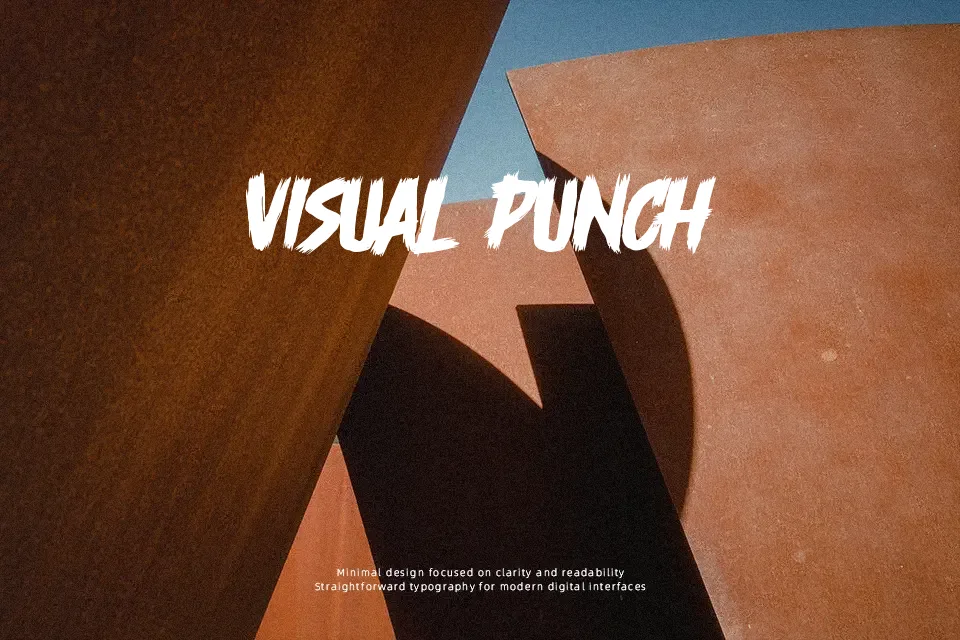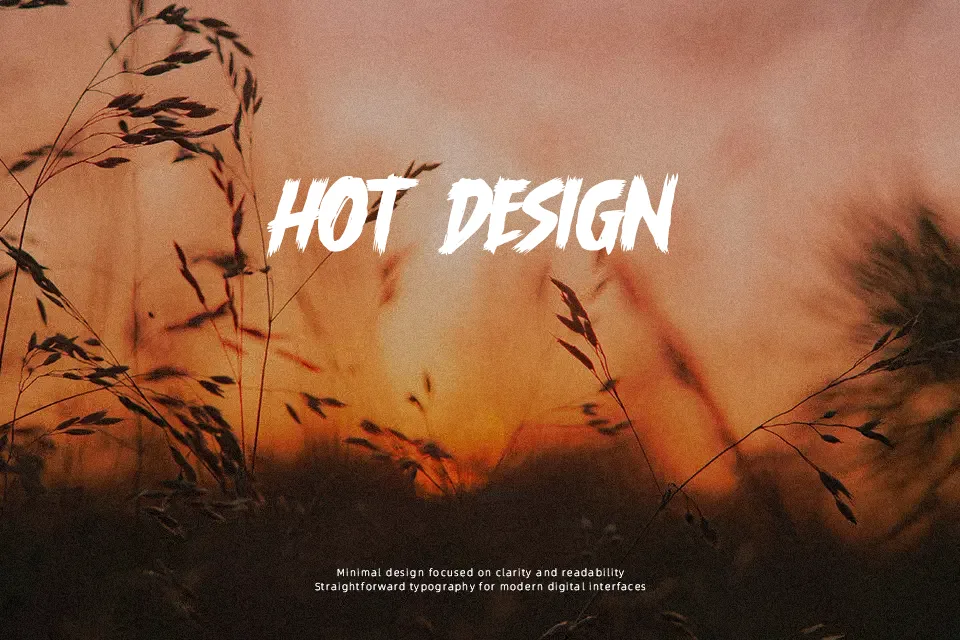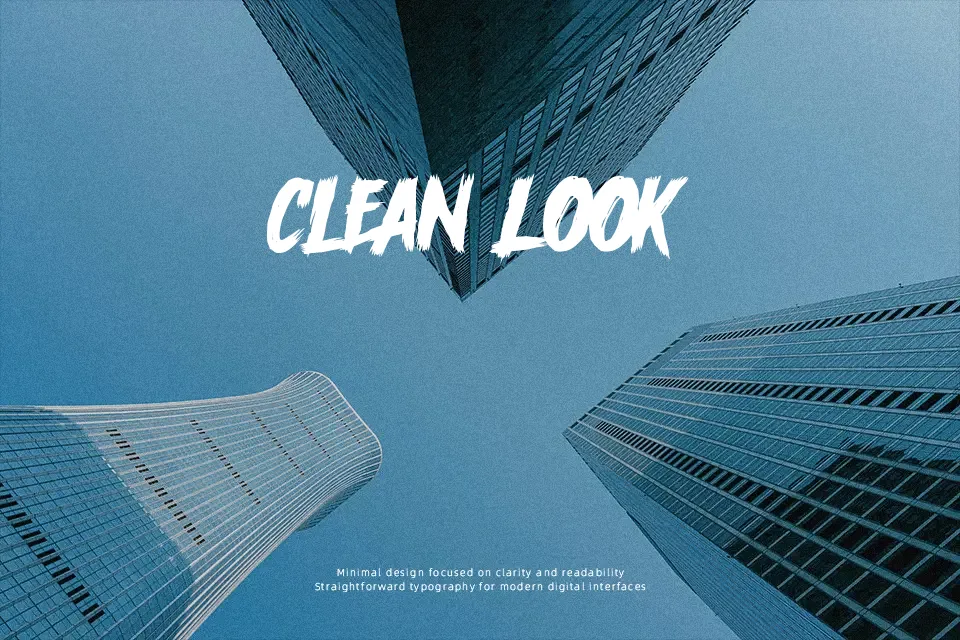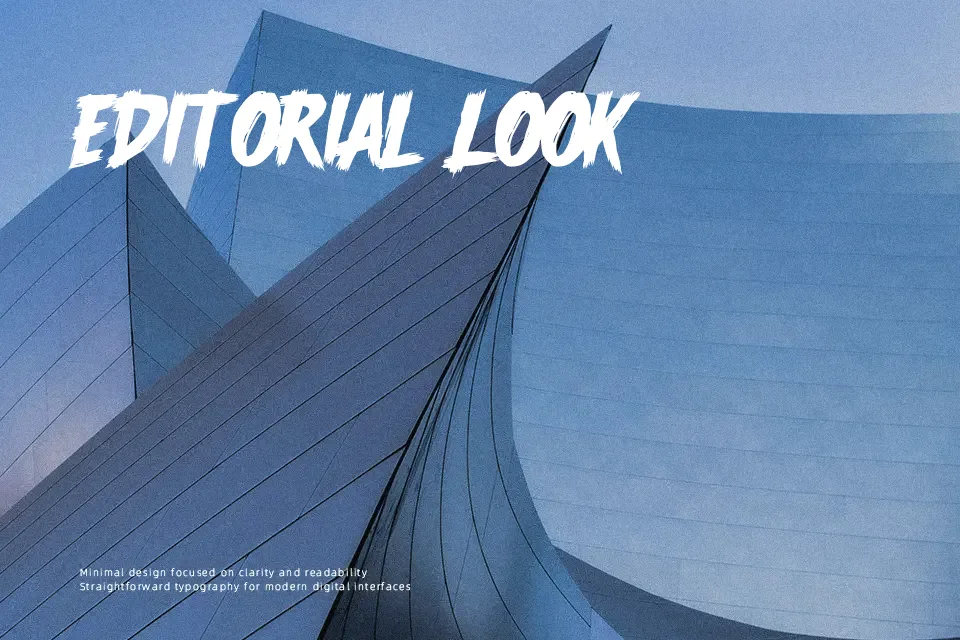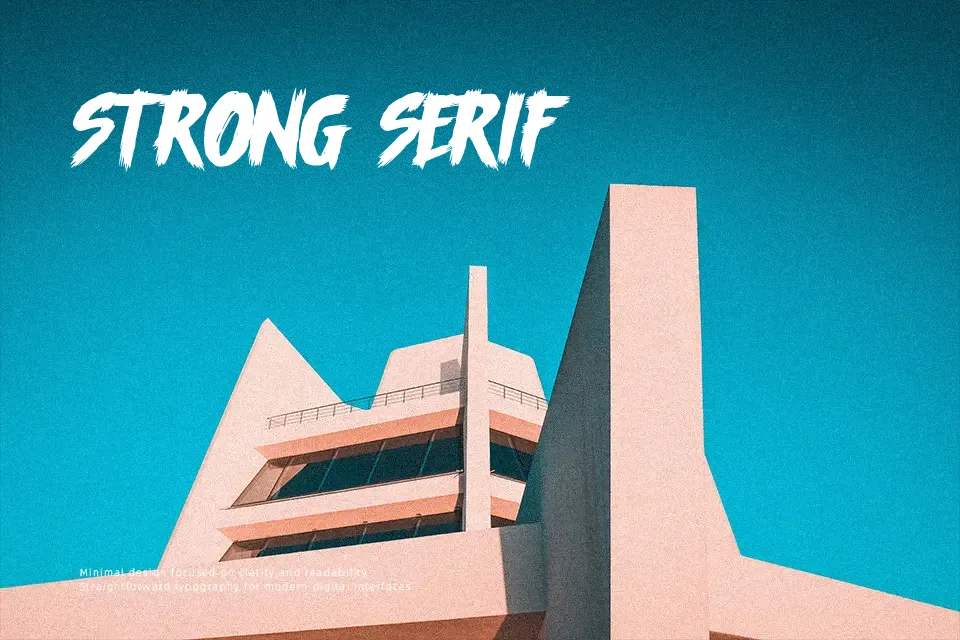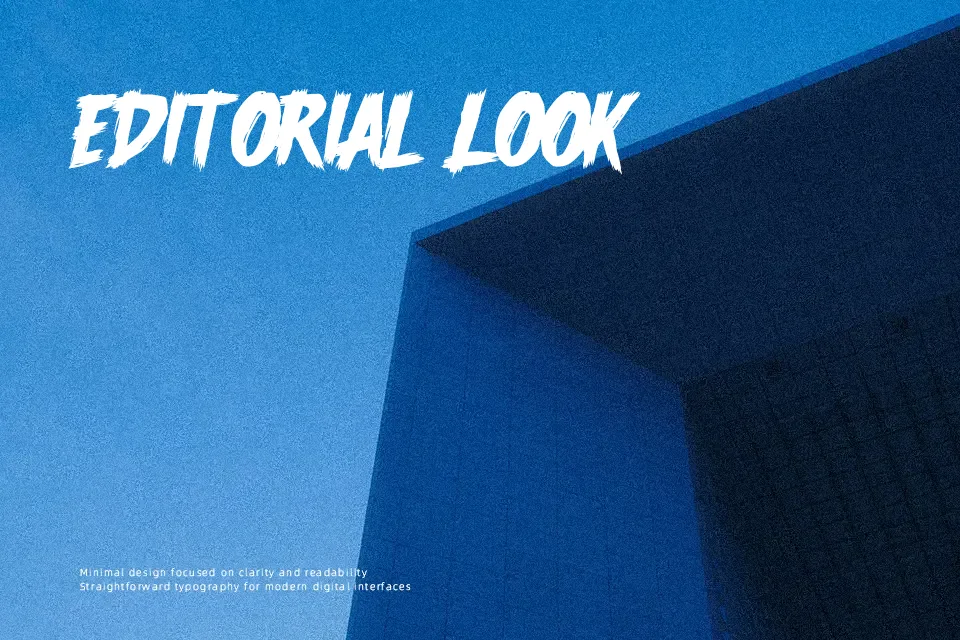
Undisclose Font
Designed by Gassstype
Undisclose Font introduces a raw display aesthetic defined by sharp scratch-like strokes, irregular terminals, and compressed proportions. The design features tight character spacing that reinforces an ominous rhythm, though individual glyphs stay clearly distinguishable in prominent header arrangements. While bold textures deliver strong dramatic impact across entertainment branding, apparel graphics, and packaging, decorative details become less effective at smaller sizes. The narrow width and intense textural complexity make extended body text difficult to read comfortably. Consequently, the typeface performs best when displayed at larger sizes where visceral brush lines can command viewer attention.
– horror movie title cards
– halloween party flyers
– heavy metal band merchandise
– thriller book covers
– continuous reading body paragraphs
– technical instruction manuals
– mobile interface microcopy
– dense spreadsheet data
Perfect for film, halloween, and headline, with a bold and brush style.